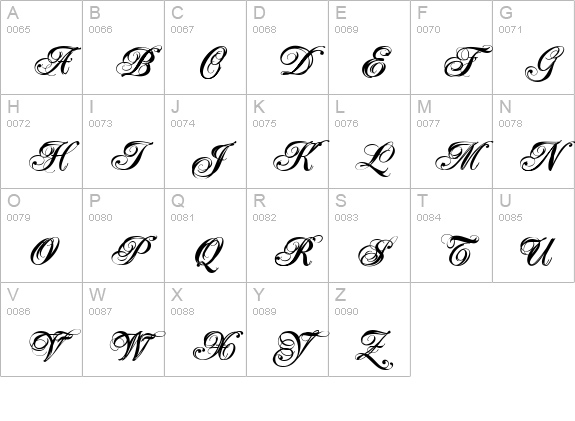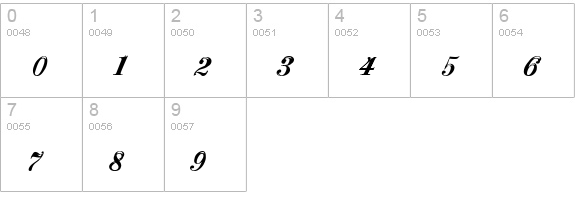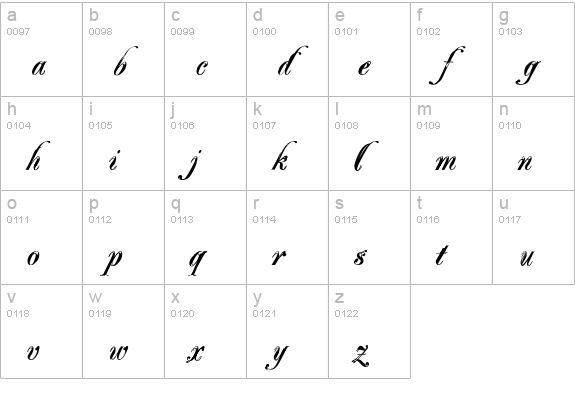
Majestic X Font Details
Introducing Majestic X, a breathtakingly elegant font that exudes sophistication and charm. With its gracefully curved letterforms and delicate serifs, Majestic X captures the essence of timeless beauty. This font is meticulously crafted to create a harmonious balance between traditional and modern design elements, making it perfect for a wide range of projects. Majestic X is not only visually stunning but also incredibly versatile. Its versatility shines through in both headline and body text, effortlessly adapting to various typographic needs. Whether you're designing a wedding invitation, a luxury brand logo, or a magazine spread, Majestic X will elevate your project with its refined aesthetic. One of the most remarkable aspects of Majestic X is that it is freely available to download at FontsMarket.com. This means that you can easily access this stunning font without any cost. Now, you don't have to compromise on quality or pay a hefty price to add a touch of elegance to your designs. Majestic X offers you the perfect combination of beauty and accessibility. Additionally, Majestic X is designed with legibility in mind, ensuring that your message is conveyed clearly to your audience. Its carefully crafted letterforms ensure that each character is distinct and easily recognizable, enhancing readability across various mediums. The Majestic X font family includes a range of weights and styles, allowing you to experiment and find the perfect fit for your design. Whether you prefer a bold and impactful statement or a more subtle and understated elegance, Majestic X has you covered. So why wait? Download Majestic X font from FontsMarket.com today and unlock the beauty of this exceptional typeface. Let Majestic X elevate your designs to new heights with its free availability and timeless appeal.